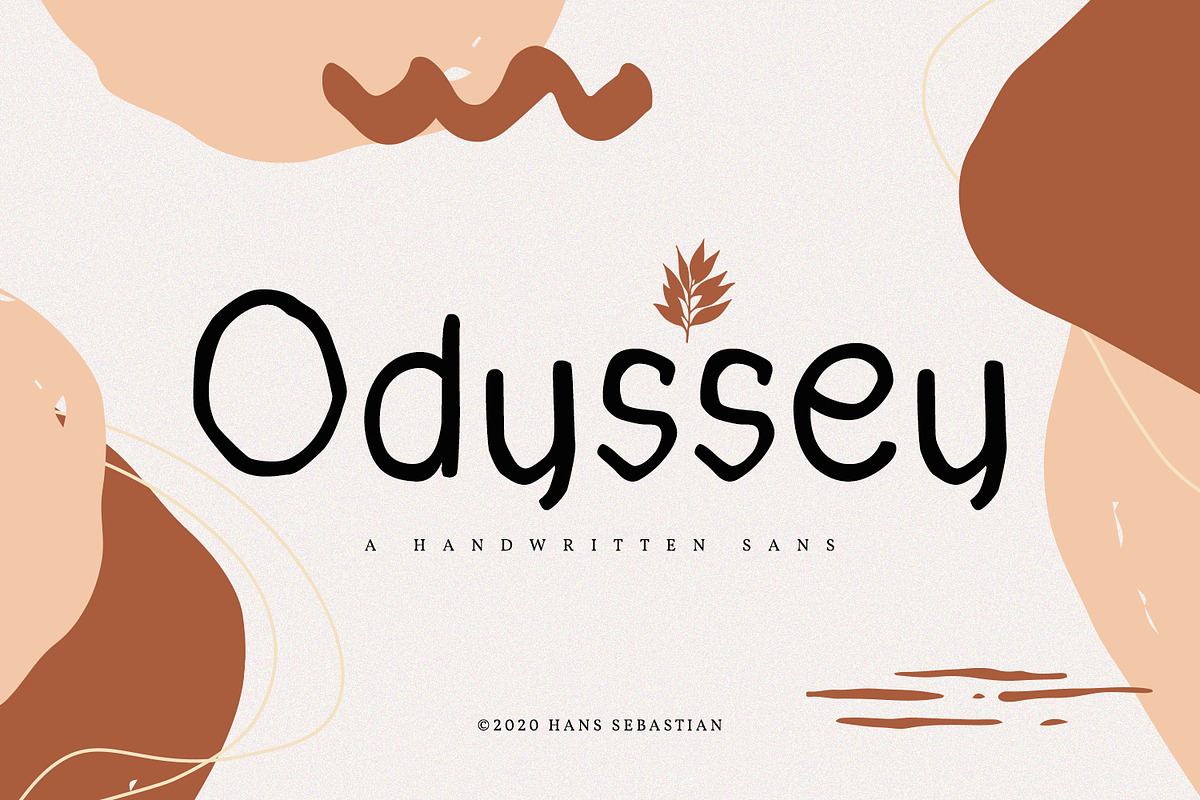
If you're looking for a clean yet personal touch in your designs, Odyssey - A Handwritten Sans Font Free Download is the perfect match. This unique handwritten sans-serif font blends the simplicity of a sans style with the warmth of hand-drawn strokes, making it ideal for logos, social media posts, product packaging, and creative branding projects.
Its natural flow and stylish character set give your text a friendly and approachable feel without sacrificing legibility. Whether you're a designer working on a lifestyle brand or just want to add a soft modern touch to your typography, Odyssey will help you stand out.